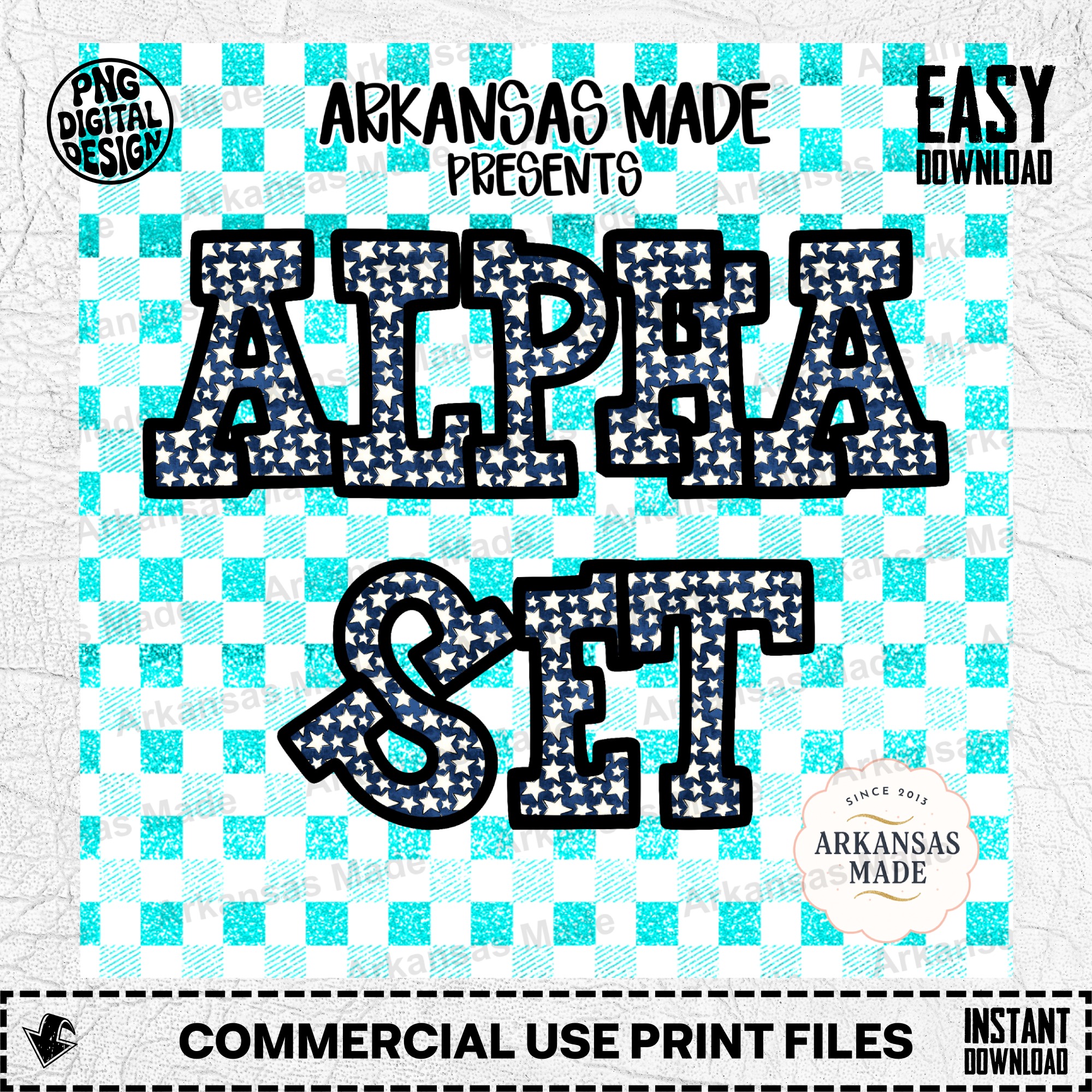
Unleash your creativity with this Distressed Navy Star Alpha Set PNG, perfect for patriotic sublimation designs and Fourth of July crafting projects. This digital alphabet features a unique star-spangled texture. Embrace the spirit of Americana with these bold, starry letters, ideal for DIY enthusiasts, small businesses, and anyone celebrating national holidays. Create custom t-shirts, festive banners, personalized tumblers, and memorable gifts that shine with a classic, vintage-inspired charm. A versatile addition to your digital art toolkit, ready for instant download.